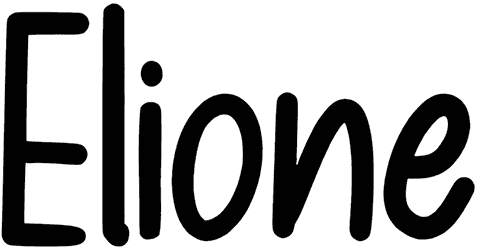
Elione Font
Elione is one of the handwritten fonts used in the animation font collection. This font can make your cartoon and children’s designs unique. Apart from this, it will be very prominent in exceptional creations, diaries, and social network posts.
The drawn and compact characters of this kids font, by being placed next to each other, can remind the pleasant feeling of school days, which will significantly contribute to the success of your designs.